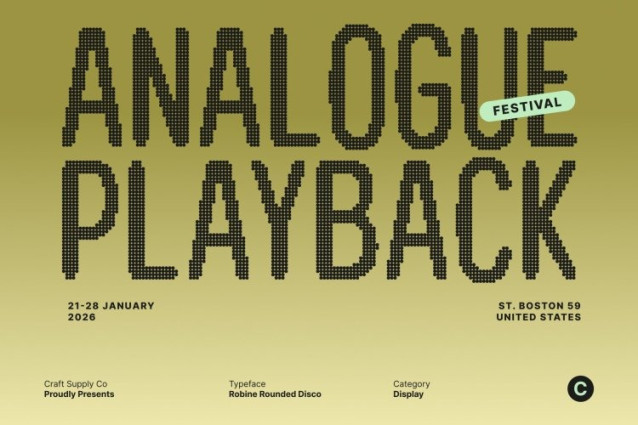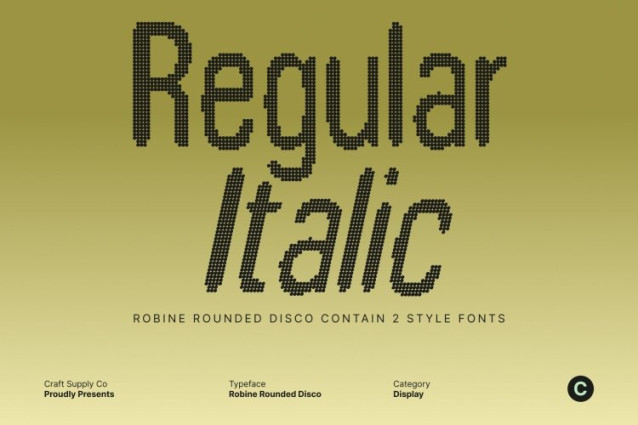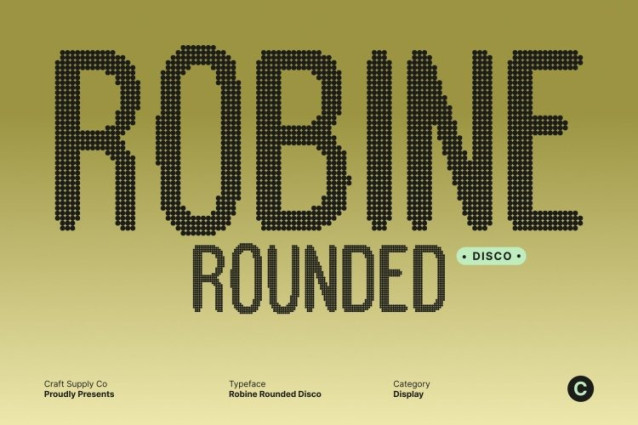
Robine Rounded Disco Font
Robine Rounded Disco Font This font friendliness sans serif into a sparkling visual experience. Its rounded edges and smooth curves now shine with a playful, energetic twist, evoking the rhythm of the dance floor. Every character exudes warmth while feeling lively and dynamic, perfect for designs that want to combine approachability with disco-era glamour.
Readable and Radiant
The slightly condensed letterforms maintain clarity while pulsating with energy. Low-contrast strokes keep readability smooth, but the playful proportions give the text a festive, vibrant feel. Whether in headlines or animated digital content, this font keeps eyes engaged while radiating the excitement of flashing lights and upbeat motion.
Versatile for Bold and Fun Applications
From branding and party posters to digital campaigns and event invitations, this font adds a burst of joy and liveliness wherever it appears. Its friendly, approachable structure now carries an extra layer of visual celebration, making every design feel energetic, stylish, and full of movement.
Dynamic Softness with Disco Energy
Each character combines softness with a rhythmic, dance-ready flair. Rounded terminals and playful curves create harmony while reflecting motion, sparkle, and fun. This font is the go-to typeface for designers who want their work to feel glamorous, festive, and alive, capturing the irresistible energy of a disco night.